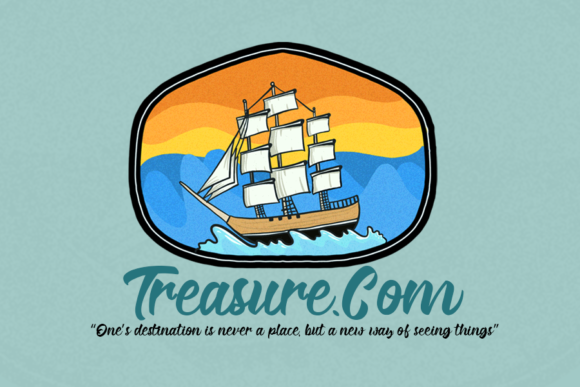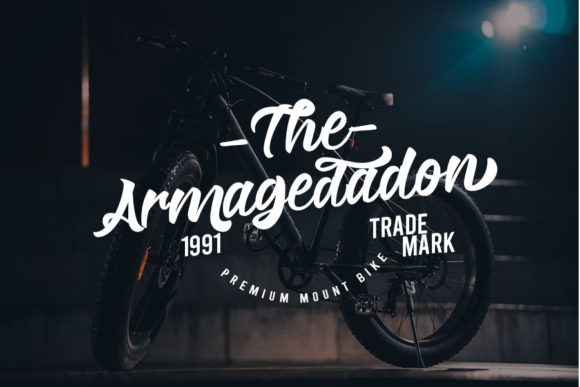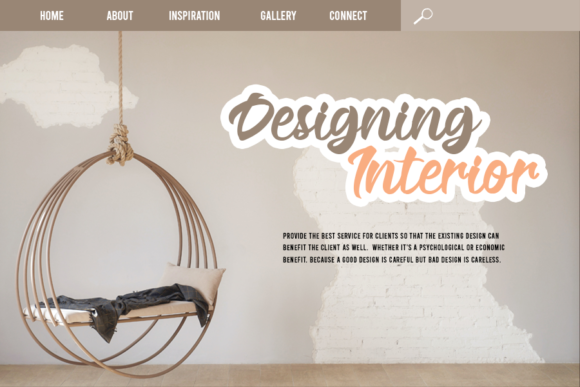
Introduction to Mondou Font
Have you ever found yourself stuck in a design rut, searching for that perfect font to bring your creative project to life? As a designer, I’m sure you know the feeling. It’s like being on the cusp of a breakthrough, and then – nothing. But what if I told you that there’s a font out there that could change all that? A font so beautiful, so versatile, that it’ll make your designs shine like never before.
Enter the Mondou Font, a stunning handwritten font that’s been making waves in the design community. With its flowing, well-rounded letters, this font is a masterclass in elegance and sophistication. Whether you’re working on a free download design project or need a high-quality font for a commercial client, Mondou Font is an absolute must-have. Its transparent background makes it a breeze to use, and its creative potential is simply limitless.
Key Features of Mondou Font
- High-quality design resource suitable for creative projects, offering a unique and stylish look.
- Features a transparent background, providing maximum flexibility for designers working on complex compositions.
- Designed to be highly legible and visually appealing, even at high resolutions (up to 300 DPI).
- Perfect for use in digital design projects, including logos, typography, and graphics.
- Includes a wide range of glyphs and characters, making it suitable for use in multiple languages.
Honest Review: Mondou Font
I recently came across the Mondou Font, a free download that caught my attention for its unique design. As a designer, I appreciate high-quality design resources that can elevate my creative projects. The Mondou Font is a great addition to my design arsenal.
What works well about the Mondou Font is its versatility. The font comes in various weights, from light to bold, making it suitable for a range of design applications. The font also features a transparent background, which is a great feature for designers who want to add an extra layer of depth to their designs.
- ✨ Unique design: The Mondou Font has a distinctive style that sets it apart from other fonts.
- ✨ Versatile: The font comes in various weights and styles, making it suitable for a range of design applications.
One limitation of the Mondou Font is that it may not be suitable for all design projects. The font’s unique style may not be to everyone’s taste, and some designers may find it too bold or overpowering.
Overall, I’m impressed with the Mondou Font. Its unique design, versatility, and high quality make it a great addition to any designer’s toolkit. While it may not be suitable for all design projects, it’s definitely worth checking out for those looking for a creative and eye-catching font.
Mondou Font: A Free Design Resource for Your Creative Project
Using Mondou Font in PowerPoint and Word
To use Mondou Font in PowerPoint and Word, start by selecting the text tool and choosing the Mondou Font from the font dropdown menu. You can then customize the font size, color, and style to suit your design needs. The Mondou Font is a great choice for creating presentations and documents that require a touch of elegance and sophistication.
Tips for Getting the Most Out of Mondou Font
To get the most out of the Mondou Font, be sure to use it in conjunction with a transparent background. This will allow you to create stunning designs and graphics that really pop. Additionally, experiment with different font sizes and styles to add visual interest to your designs.
Common Use Cases for Mondou Font
The Mondou Font is perfect for a variety of creative projects, including logo design, branding, and marketing materials. It’s also great for creating eye-catching headings and titles in your designs. With its high-quality design and transparent background, the Mondou Font is sure to elevate your creative projects to the next level.